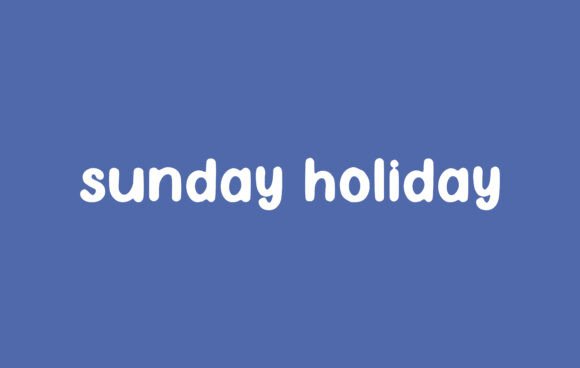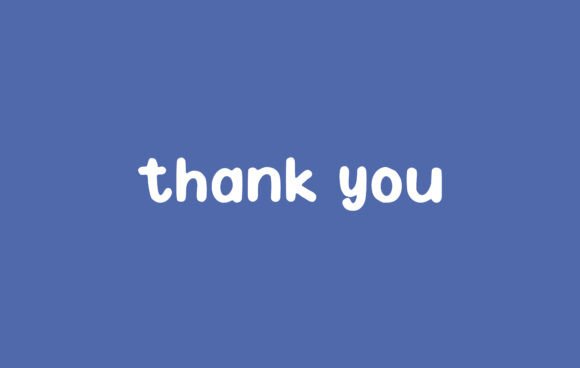
Introduction to New Hampshire Font
As a designer, there’s nothing quite like the rush of inspiration that comes when you stumble upon the perfect font for a creative project. It’s the moment when everything clicks into place, and your ideas start to flow. For me, that moment came when I discovered the New Hampshire Font – an authentic handwritten font that exudes a romantic touch.
What I love about the New Hampshire Font is its versatility. Whether you’re working on a magazine headline, a social media campaign, or even a wedding invitation, this font is sure to add a touch of elegance and sophistication. Its legibility makes it perfect for body text, while its charm shines through in title design. With its high-quality design and transparent background, this font is a valuable resource for any designer looking to elevate their creative work.
Key Features of New Hampshire Font
- High-quality font design with a unique, rustic feel, perfect for creative projects.
- Includes a wide range of characters, including uppercase and lowercase letters, numbers, and punctuation marks.
- Suitable for use in various design projects, from logos and branding to signage and advertising materials.
Honest Review: New Hampshire Font
As a designer, I’m always on the lookout for high-quality design resources to elevate my creative projects. Recently, I stumbled upon the New Hampshire Font, and I’m excited to share my honest review with you.
- The New Hampshire Font is a beautiful, free download that’s perfect for any creative project.
- It has a transparent background, making it easy to use in various design scenarios.
- The font is highly legible, with clean lines and a classic feel that’s both timeless and versatile.
- While the font is free, it’s not as extensive as some of the more popular font libraries out there.
- The character set is relatively limited, which may be a drawback for designers working on complex projects.
Overall, I’m impressed with the New Hampshire Font, but I wouldn’t recommend it as a primary font for large-scale projects. However, for smaller-scale designs or as a secondary font, it’s a great addition to any design resource library.
The New Hampshire Font is a unique and creative design resource that offers a high-quality, free download for various design projects. Its transparent background makes it perfect for use in a variety of creative projects, from graphic design to digital art.
To get the most out of the New Hampshire Font, use it in combination with other high-quality design resources, experiment with different font sizes and styles, and use it in creative projects that showcase its unique features.
Common Use Cases for New Hampshire Font
The New Hampshire Font is commonly used in graphic design, digital art, and other creative projects that require a unique and eye-catching font. Its transparent background makes it perfect for use in logos, icons, and other design elements.
Alternatives to New Hampshire Font